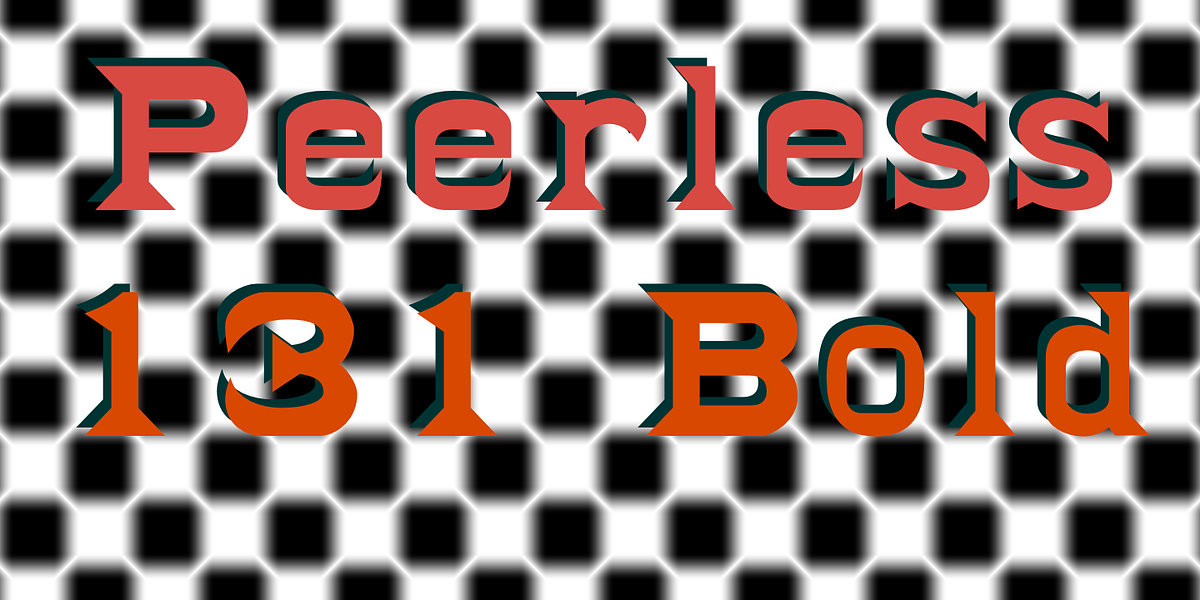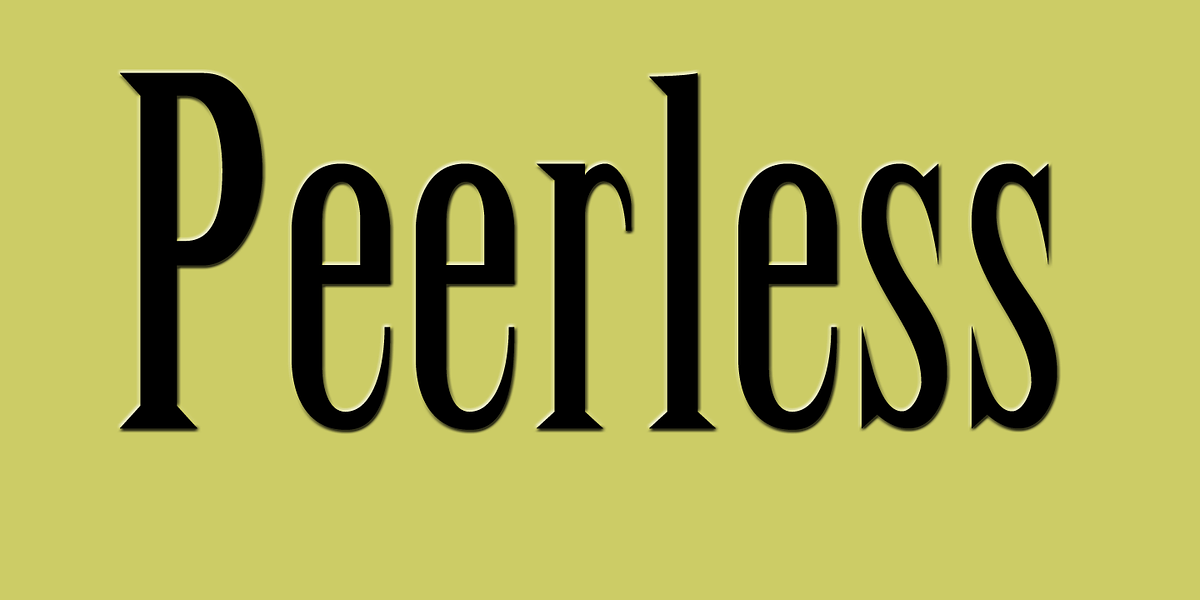
Peerless
This font is a revival of a popular wooden type style from the 19th century. It's designed to be versatile and can be used for both display purposes, such as headlines, and for setting body text. Its angled features give it a distinct vintage character.